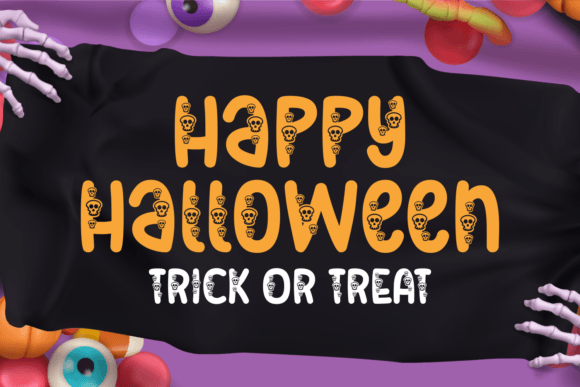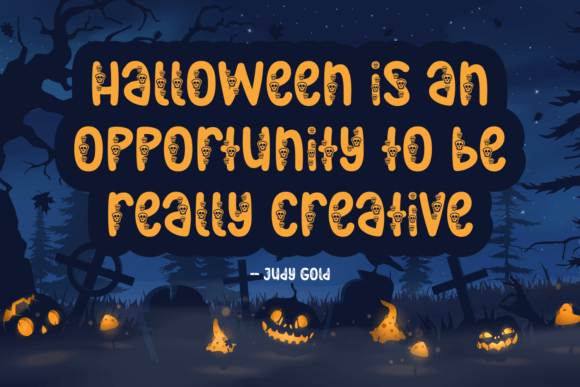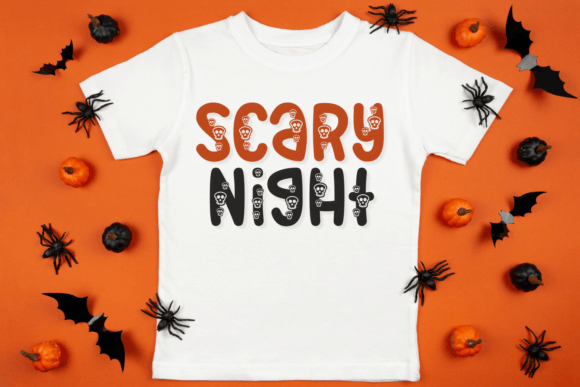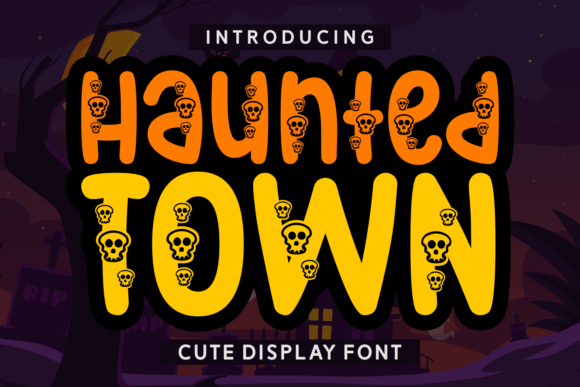
Haunted Town is a spooky yet friendly decorative font.
Its cute little skeleton faces that โ€œhauntโ€ every letter will enhance any Halloween project you wish to create .